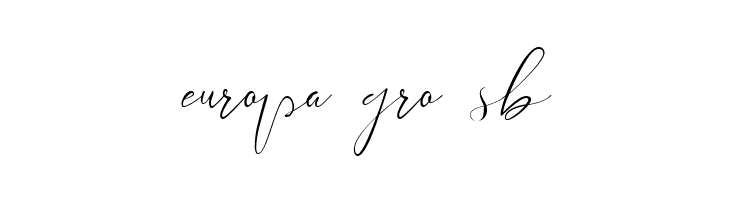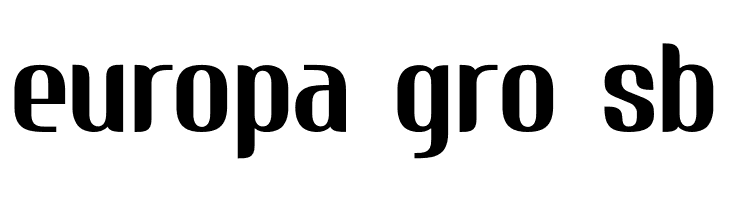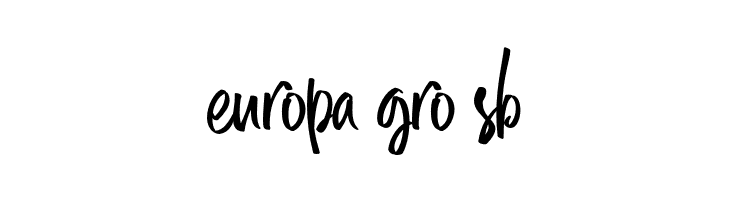
( Sigit Nur Wicaksono - creativemarket.com/ogit )
A sophisticated script font with flowing, ornate cursive letters.
( Sreekumar M - sreekuttan09.deviantart.com/ )
A pixelated, geometric font with a retro digital aesthetic.
( Typodermic Fonts - Ray Larabie - www.typodermicfonts.com/ )
A geometric, angular font with a consistent italic slant and modern appeal.
( Typodermic Fonts - Ray Larabie - www.typodermicfonts.com/ )
A geometric and angular font with a modern, technical appearance.
( Typodermic Fonts - Ray Larabie - www.typodermicfonts.com/ )
A sleek, modern italic font with a slightly condensed style and elegant slant.
( Typodermic Fonts - Ray Larabie - www.typodermicfonts.com/ )
A modern, condensed sans-serif font with a clean and professional look.
( Vast - Vast aka M Fairuzulhaq - creativemarket.com/vast )
A bold, modern font with rounded and squared elements, perfect for impactful designs.
( Vladimir Fedotov )
A playful and whimsical font with tall, slender letterforms and artistic flair.
( Wacaksara Co - www.wacaksara.co )
A flowing, cursive script font with elegant loops and swashes.
( Walkeren - Didi Syarif - behance.net/walkeren )
A bold, energetic handwritten font with flowing strokes and a lively appearance.